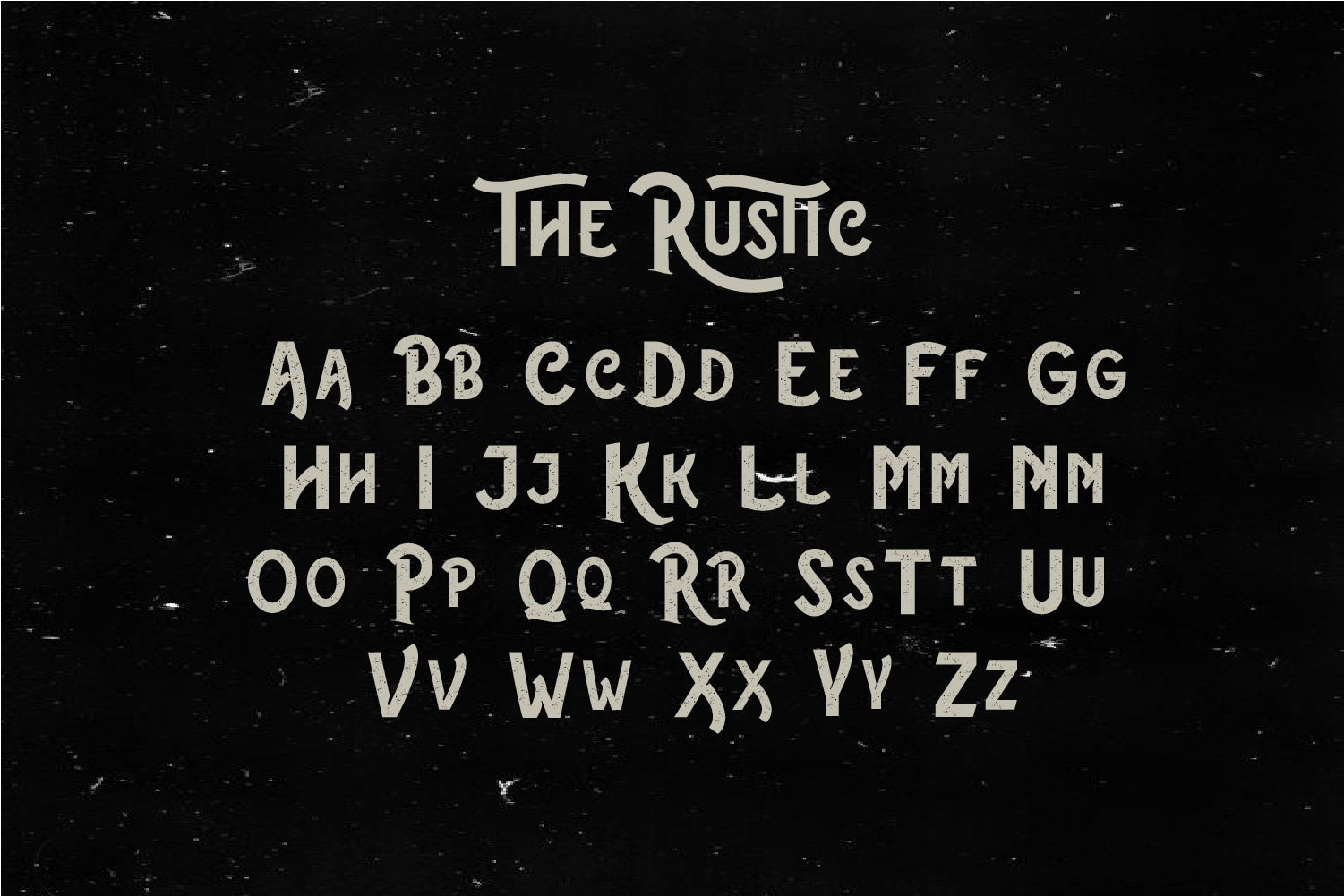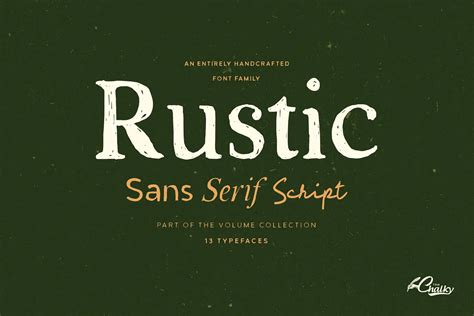
What Does A Rustic Font Meaning . Web invoke a handcrafted feel with our rustic fonts. In this post, we look at some of the most.
Web invoke a handcrafted feel with our rustic fonts. Web rustic fonts echo the untouched wilds and a handcrafted vibe. Web rustic font opens up a whole new world of vintage fonts.
They boast distressed textures and may have that hand. This typography is characterized by worn or rough textures, often associated with wooden. Web invoke a handcrafted feel with our rustic fonts. Rustic typefaces come in a.
What Does A Rustic Font Meaning - Web rustic font opens up a whole new world of vintage fonts. Web the font you use for typography is usually the key element of a rustic design. Web invoke a handcrafted feel with our rustic fonts. They boast distressed textures and may have that hand. Rustic typefaces come in a.
What Does A Rustic Font Meaning - Web the font you use for typography is usually the key element of a rustic design. Rustic typefaces come in a. Web invoke a handcrafted feel with our rustic fonts. Web rustic font opens up a whole new world of vintage fonts. They boast distressed textures and may have that hand.
What Does A Rustic Font Meaning - Rustic typefaces come in a. Web the font you use for typography is usually the key element of a rustic design. In this post, we look at some of the most. They boast distressed textures and may have that hand. This typography is characterized by worn or rough textures, often associated with wooden.
What Does A Rustic Font Meaning - Perfect for farmhouse themes, artisanal projects, or any design that requires a touch of the organic and natural. Web rustic fonts echo the untouched wilds and a handcrafted vibe. In this post, we look at some of the most. Web the font you use for typography is usually the key element of a rustic design. This typography is characterized by.
What Does A Rustic Font Meaning - Web rustic font opens up a whole new world of vintage fonts. They boast distressed textures and may have that hand. Perfect for farmhouse themes, artisanal projects, or any design that requires a touch of the organic and natural. Web the font you use for typography is usually the key element of a rustic design. Rustic typefaces come in a.
What Does A Rustic Font Meaning - Web invoke a handcrafted feel with our rustic fonts. Web rustic fonts echo the untouched wilds and a handcrafted vibe. Rustic typefaces come in a. In this post, we look at some of the most. This typography is characterized by worn or rough textures, often associated with wooden.
What Does A Rustic Font Meaning - Perfect for farmhouse themes, artisanal projects, or any design that requires a touch of the organic and natural. In this post, we look at some of the most. Web rustic font opens up a whole new world of vintage fonts. Web rustic fonts echo the untouched wilds and a handcrafted vibe. Web the font you use for typography is usually.
What Does A Rustic Font Meaning - This typography is characterized by worn or rough textures, often associated with wooden. Web the font you use for typography is usually the key element of a rustic design. Web invoke a handcrafted feel with our rustic fonts. Rustic typefaces come in a. Web rustic font opens up a whole new world of vintage fonts.
What Does A Rustic Font Meaning - Web rustic fonts echo the untouched wilds and a handcrafted vibe. In this post, we look at some of the most. This typography is characterized by worn or rough textures, often associated with wooden. They boast distressed textures and may have that hand. Web invoke a handcrafted feel with our rustic fonts.
What Does A Rustic Font Meaning - Web the font you use for typography is usually the key element of a rustic design. Perfect for farmhouse themes, artisanal projects, or any design that requires a touch of the organic and natural. Web invoke a handcrafted feel with our rustic fonts. Web rustic fonts echo the untouched wilds and a handcrafted vibe. This typography is characterized by worn.
What Does A Rustic Font Meaning - Web rustic font opens up a whole new world of vintage fonts. Web rustic fonts echo the untouched wilds and a handcrafted vibe. In this post, we look at some of the most. Web the font you use for typography is usually the key element of a rustic design. This typography is characterized by worn or rough textures, often associated.
What Does A Rustic Font Meaning - This typography is characterized by worn or rough textures, often associated with wooden. Rustic typefaces come in a. Web rustic fonts echo the untouched wilds and a handcrafted vibe. Web invoke a handcrafted feel with our rustic fonts. They boast distressed textures and may have that hand.
What Does A Rustic Font Meaning - In this post, we look at some of the most. Perfect for farmhouse themes, artisanal projects, or any design that requires a touch of the organic and natural. Web the font you use for typography is usually the key element of a rustic design. They boast distressed textures and may have that hand. Web rustic fonts echo the untouched wilds.